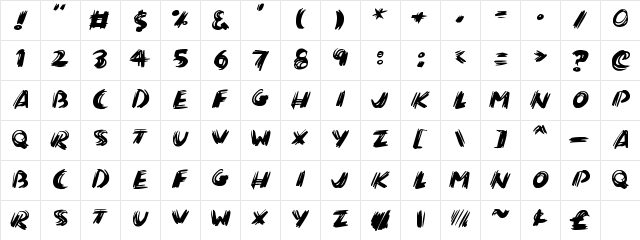
Brushalot Regular
Design Context for Brushalot Typeface
Brushalot brings a calligraphic fluidity to the page — its connecting strokes and expressive curves give it an unmistakably human quality.
Font Pairing: Combine Brushalot with a simple geometric sans for maximum contrast — the tension between flowing curves and clean structure is a classic typographic pairing.
Pro Tip: Pair Brushalot with a clean sans-serif for supporting text. The contrast between fluid script and geometric structure creates an elegant typographic hierarchy.